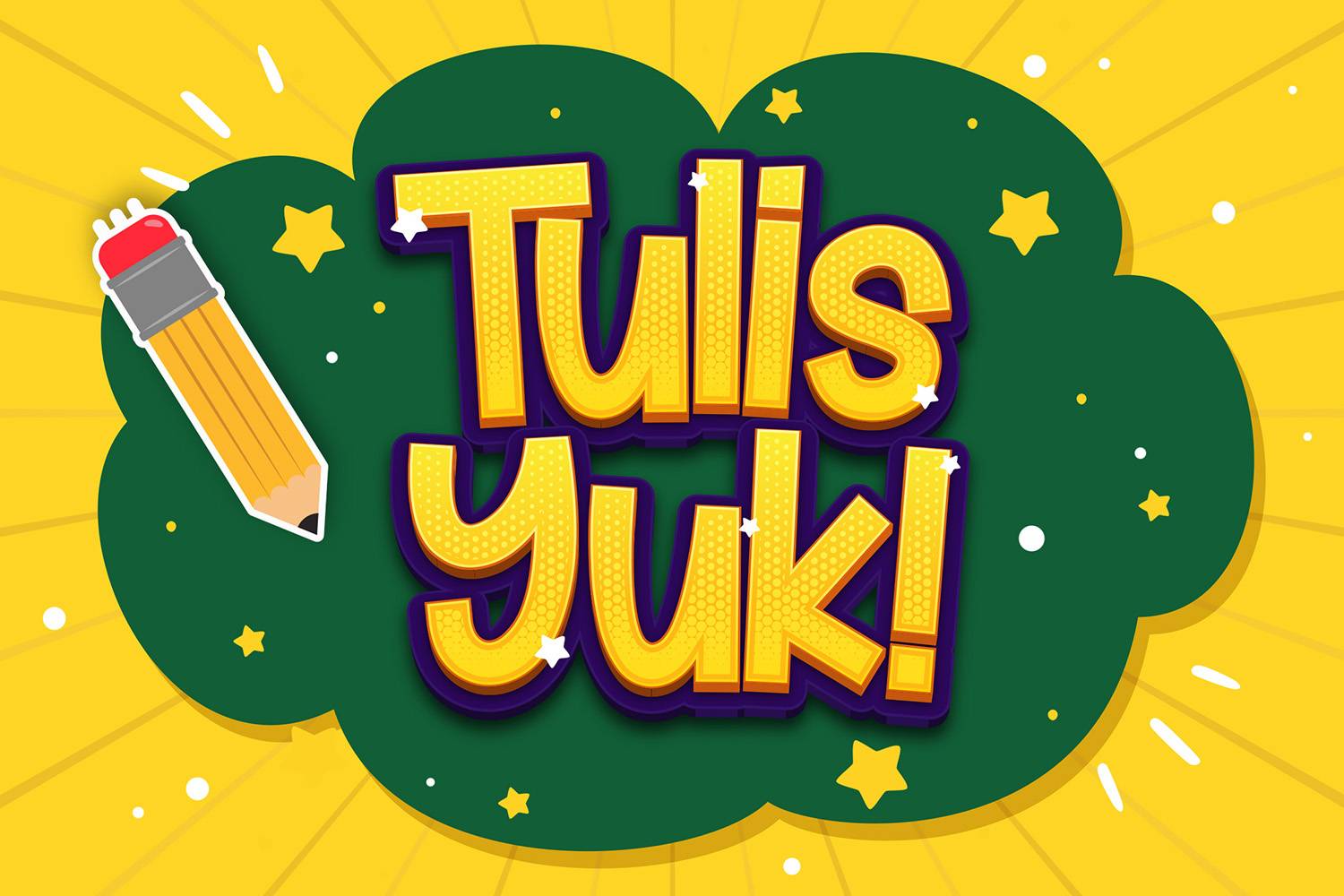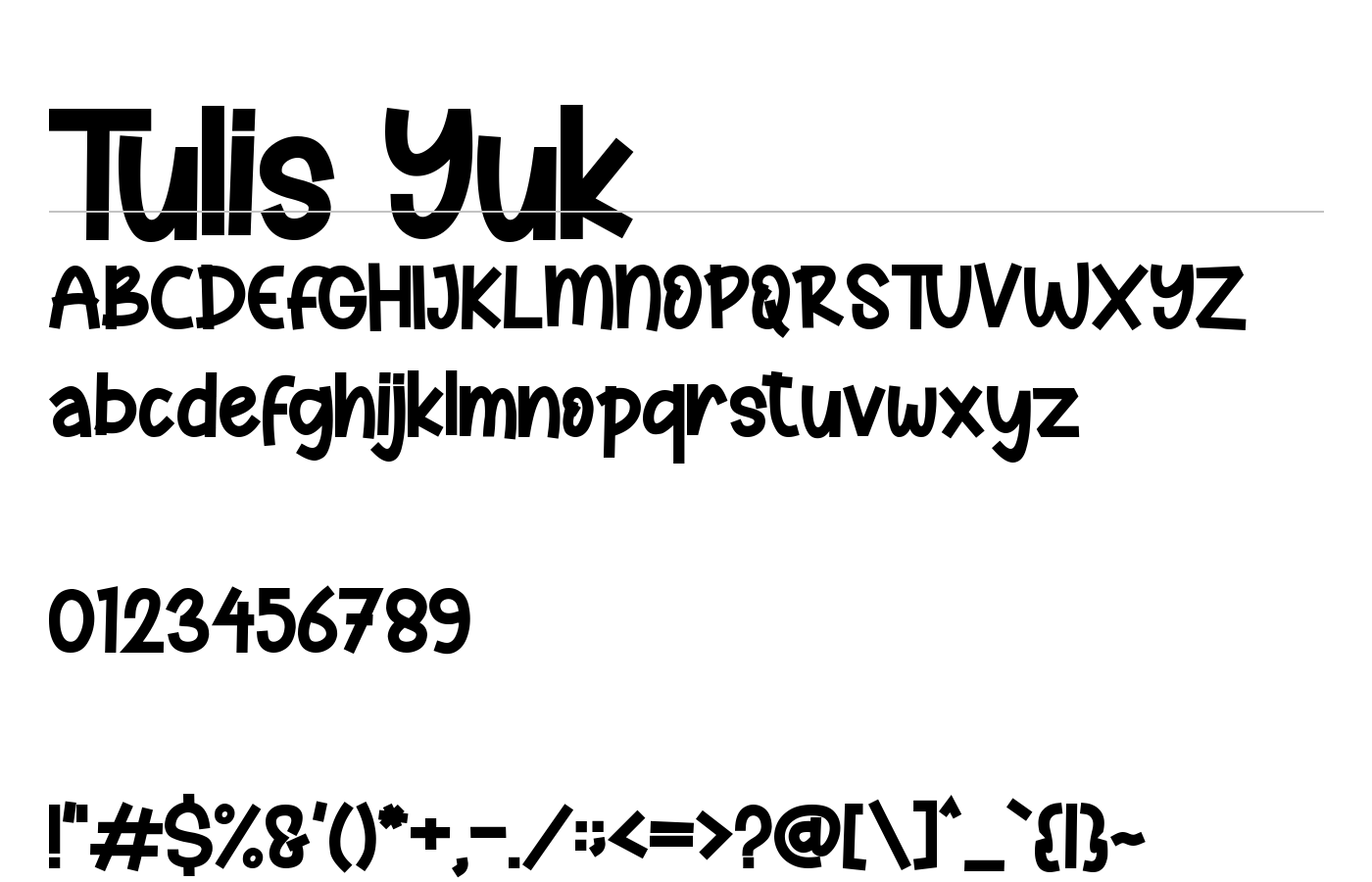
Tulis Yuk is a playful sans serif font with a quirky, hand-drawn feel, featuring irregular, slightly tilted letterforms that add personality and charm. Its bold weight and rounded shapes create a friendly, casual vibe, making it ideal for fun, informal designs such as children's books, creative branding, and lively posters. This font works well in headlines or short texts where an engaging, approachable tone is desired.
Tulis Yuk Font
About Tulis Yuk Font